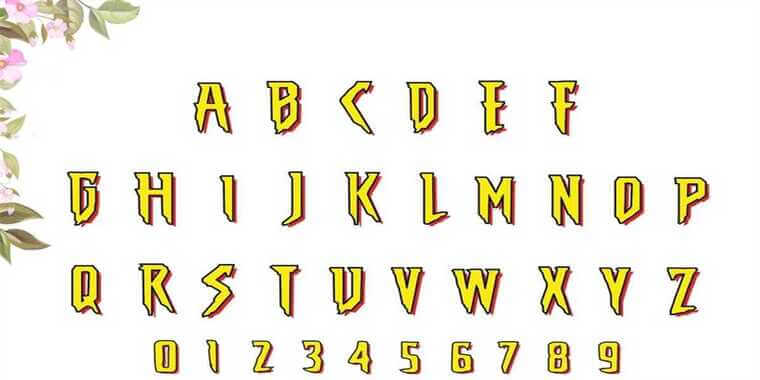
Spiderman is a Fictional Superhero made by Stan Lee and Steve Ditko. He got powers like a spider after a radioactive spider bit him. He uses these powers to stop bad guys and keep the people in New York City safe.
In Spiderman stories and movies, they used different writing styles, but the most liked one is The Amazing Spider Man Font. There are also other Spiderman fonts like Homoarakhn Font, Speedy Font, and Spider-Man Font.